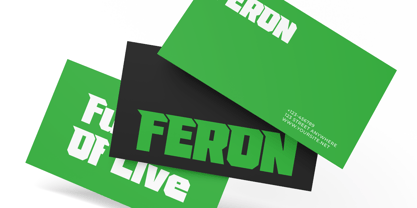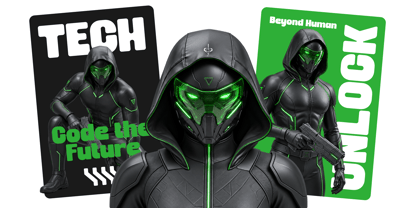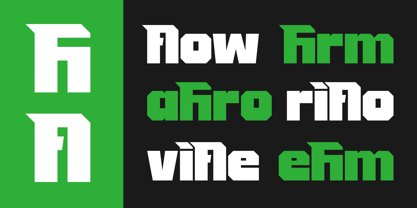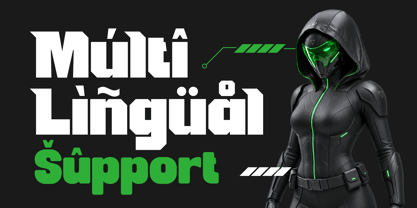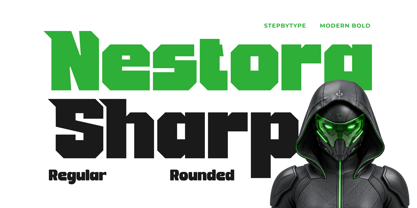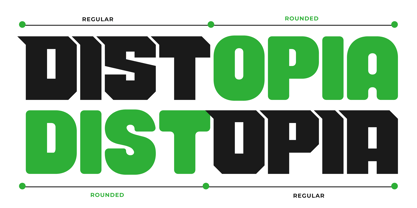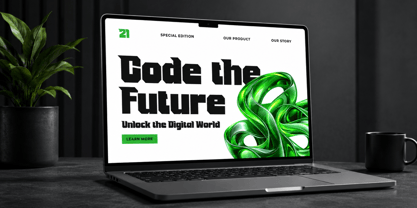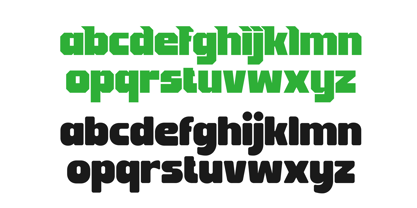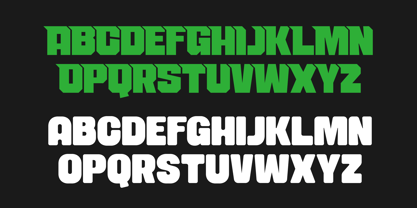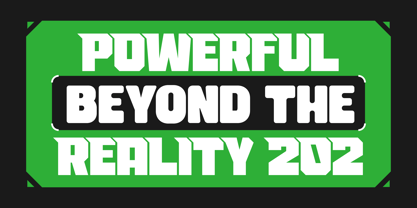
Nestora Sharp
by Steptype
The Nestora Sharp Font Family was designed by Saeful Maarif and published by Steptype. Nestora Sharp contains 2 styles and family package options. More about this family
Nestor Sharp is a modern bold display font with a strong font. It features sharp angular cuts, blocky geometric structures, and powerful letterforms that create an aggressive and energetic visual impact. The strong silhouette and athletic personality make it ideal for designs that require a sense of speed, strength, competition, and performance.
The font combines a tech-inspired style with sports branding characteristics, making it suitable for action-focused visuals, team identities, esports graphics, and dynamic advertising.